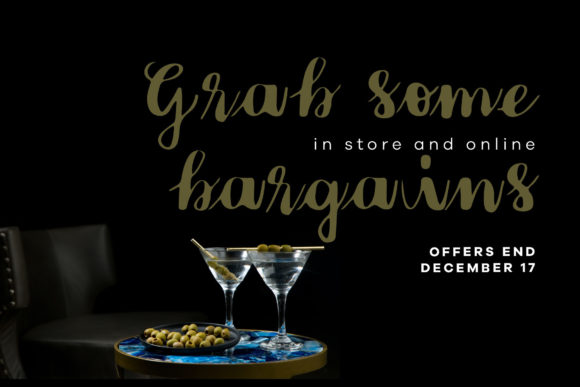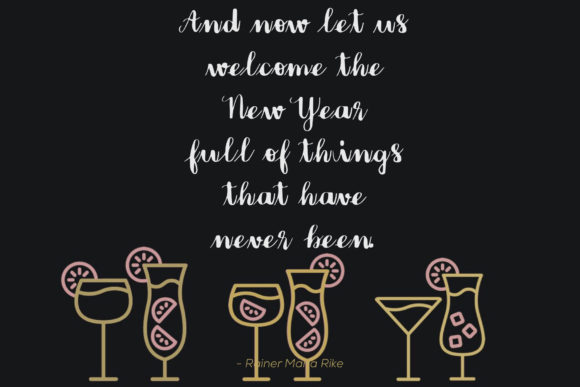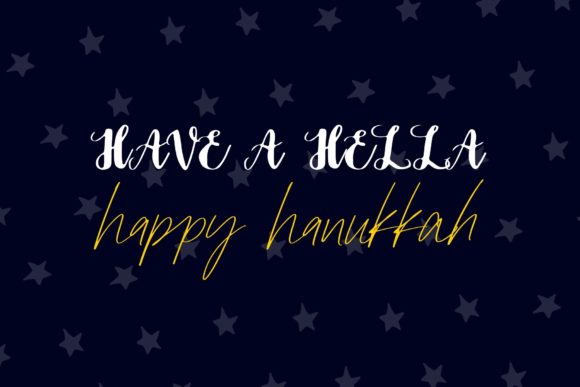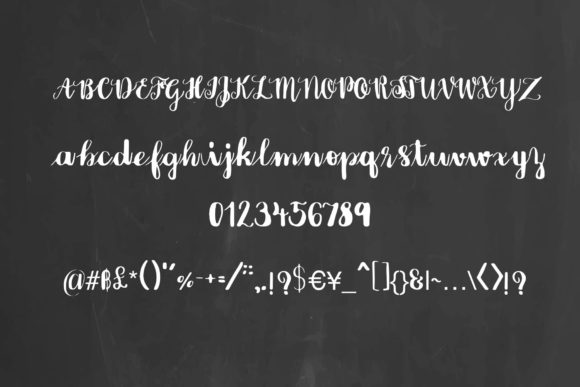
Introducing the Elegant Cheers Font: Elevate Your Designs with Sophistication
In the world of typography, a font can make or break the aesthetic of a design project. For those seeking a touch of elegance and sophistication, the Cheers Font is an exceptional choice. This chic, refined script font is designed to add a level of luxury and poise to any creative endeavor, making it a perfect match for designers and crafters looking to elevate their work.
The Characteristics of Cheers Font
Cheers Font stands out with its stylish alternates and ligatures, which provide a high degree of versatility and customization. This feature-rich font is crafted to ensure that your designs not only look refined but also unique. The inclusion of alternates and ligatures allows for a more personalized approach to typography, enabling designers to tailor the font to the specific needs of their projects.
Why Choose Cheers Font?
- Sophistication and Elegance: At its core, Cheers Font is designed to bring a sense of sophistication and elegance to your designs. Its refined strokes and classic script style make it an ideal choice for projects that demand a high level of aesthetic appeal.
- Versatility: The font’s range of stylish alternates and ligatures means it can be adapted to suit a variety of design needs. Whether you’re working on a luxury brand’s logo, a high-end product catalog, or an elegant wedding invitation, Cheers Font can be tailored to fit the project’s tone and style.
- Easy to Read: Despite its elegant and refined nature, Cheers Font maintains a high level of readability. This makes it not only a stylish choice but also a practical one for designs that require clear communication.
- Perfect for Various Projects: From branding and advertising to packaging and stationery, Cheers Font’s versatility means it can be used across a wide range of design projects. Its ability to convey luxury and sophistication makes it particularly well-suited for high-end branding and marketing materials.
Using Cheers Font in Your Designs
- Pair it Wisely: Combine Cheers Font with complementary fonts to create visual interest and hierarchy in your designs. A contrasting font can help highlight key information or add a modern touch to your work.
- Experiment with Alternates and Ligatures: Don’t hesitate to explore the font’s range of alternates and ligatures. These elements can add a unique touch to your designs and help convey the desired message or mood.
- Consider the Context: Think about the context in which your design will be used. For digital applications, you might focus on legibility and screen compatibility, while for print materials, you can push the boundaries of creativity and luxury.
Cheers Font is a powerful tool for designers and crafters aiming to infuse their projects with elegance and sophistication. Its refined script style, combined with a range of stylish alternates and ligatures, makes it a versatile and luxurious choice for a variety of design applications. By incorporating Cheers Font into your work, you can elevate your designs, communicate luxury, and create a lasting impression on your audience.
Whether you’re crafting a brand identity, designing a special invitation, or working on a high-end marketing campaign, Cheers Font offers the perfect blend of style, readability, and sophistication. Make your designs stand out with this chic and refined script font, and discover the impact that a touch of elegance can have on your creative projects.